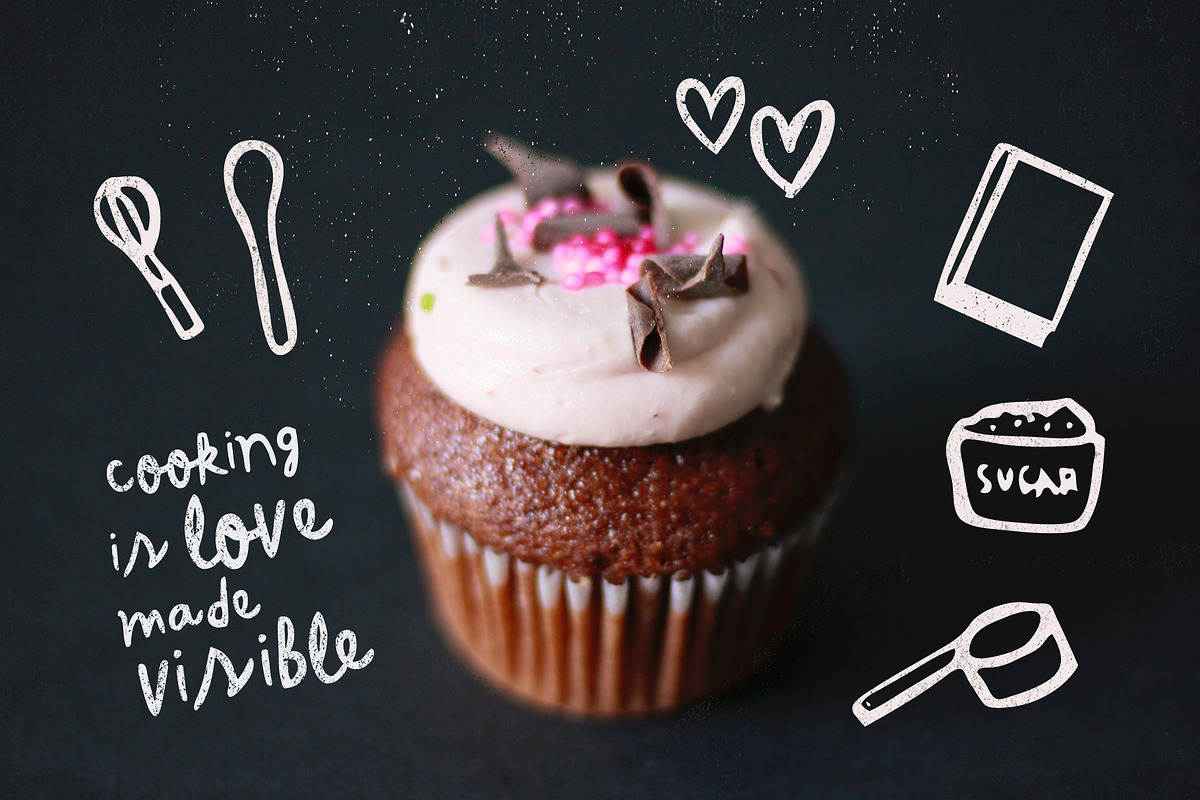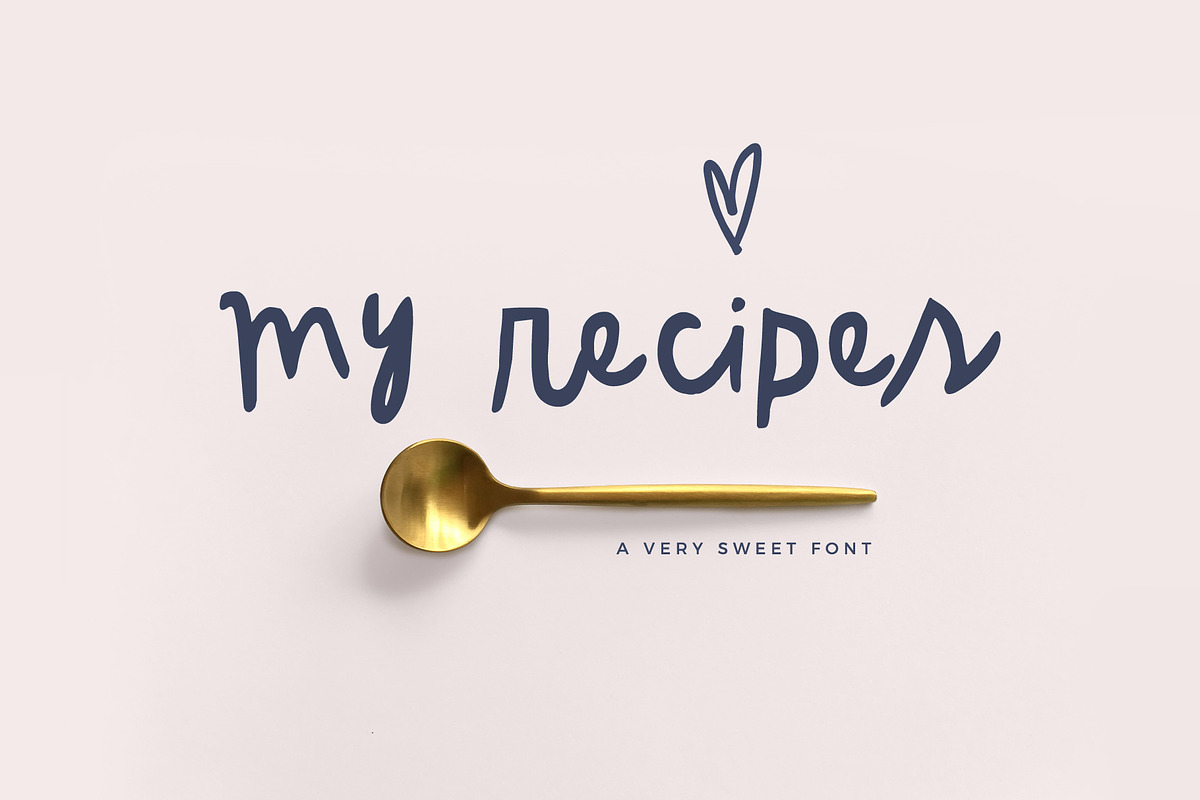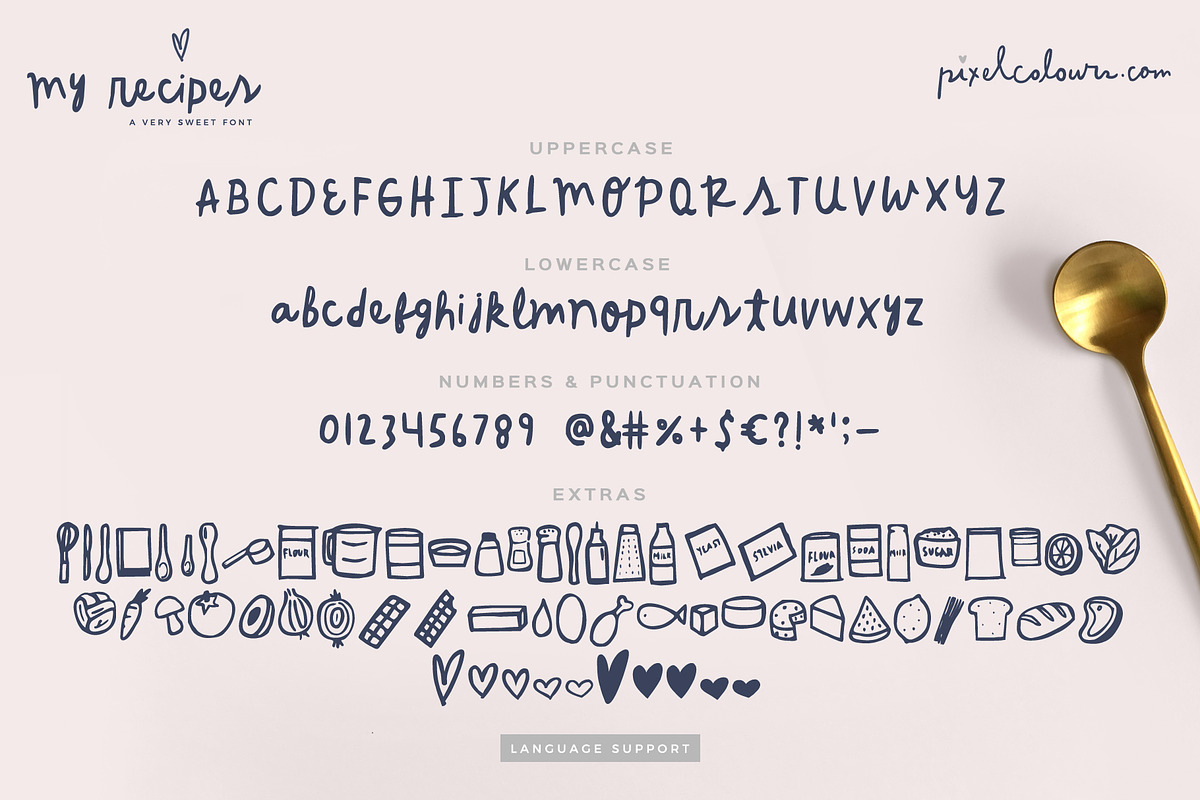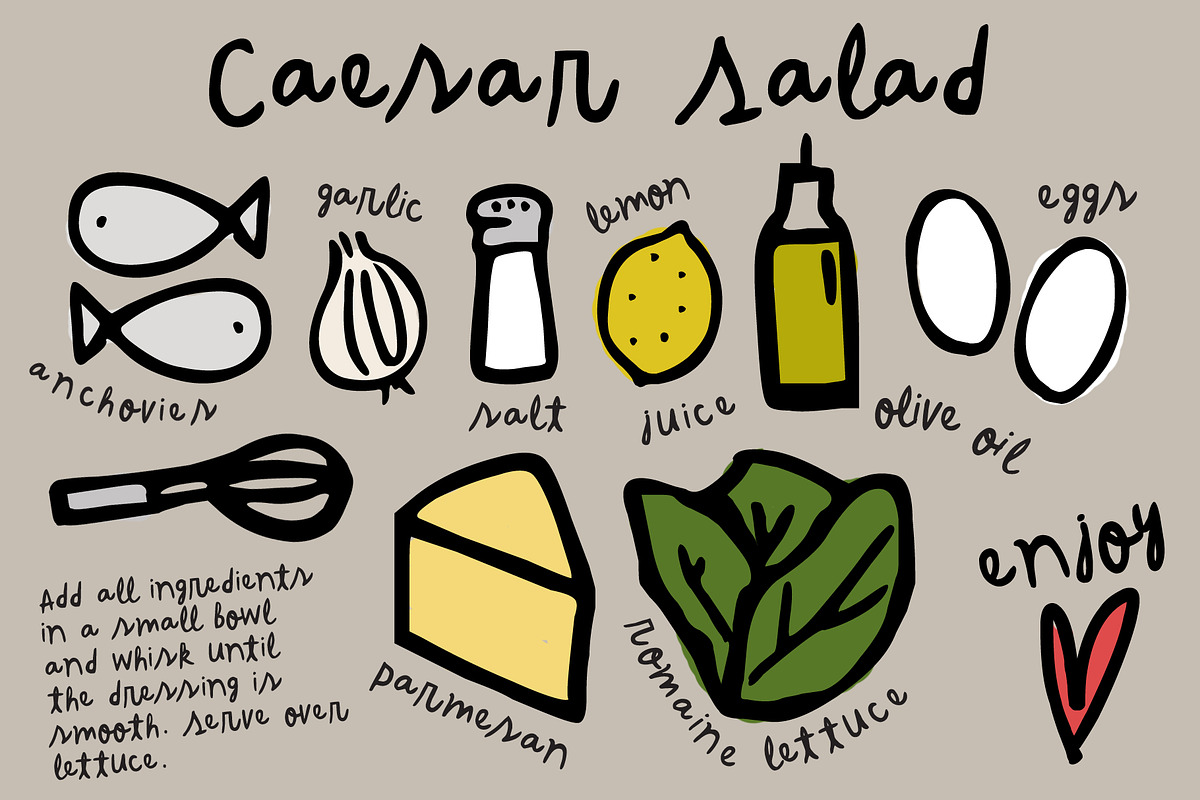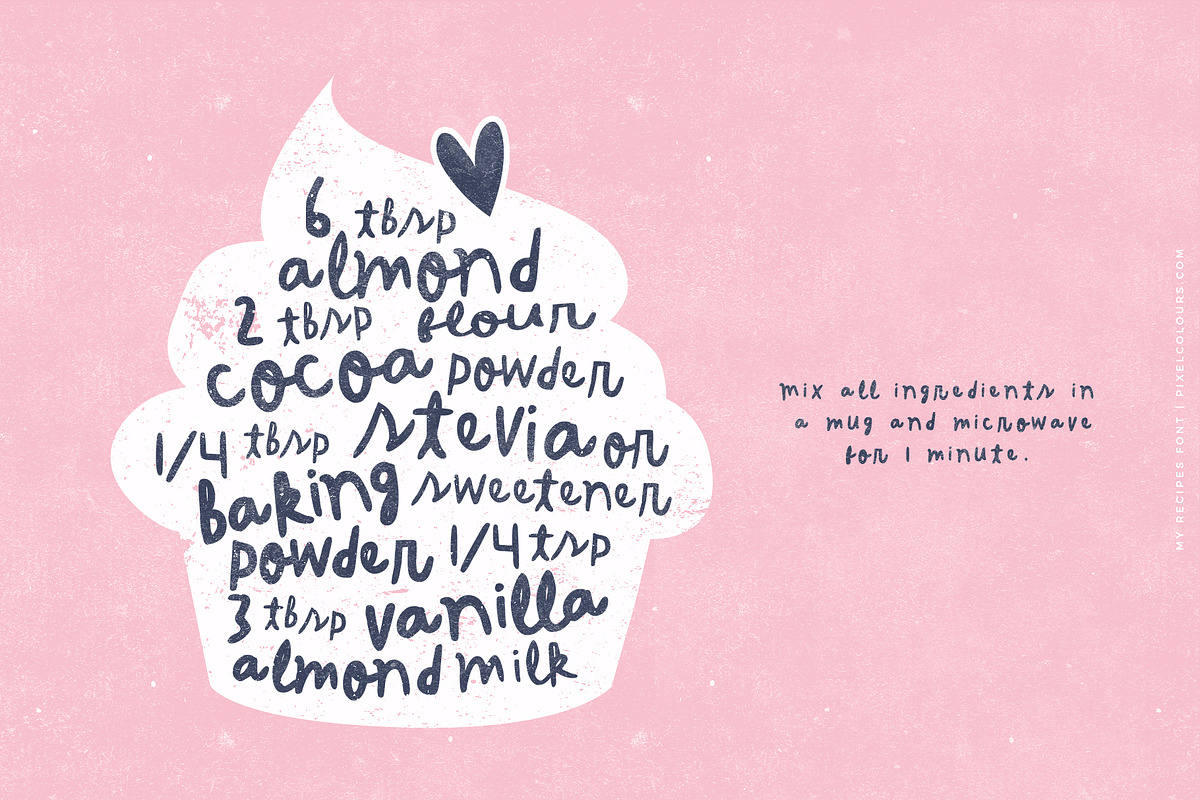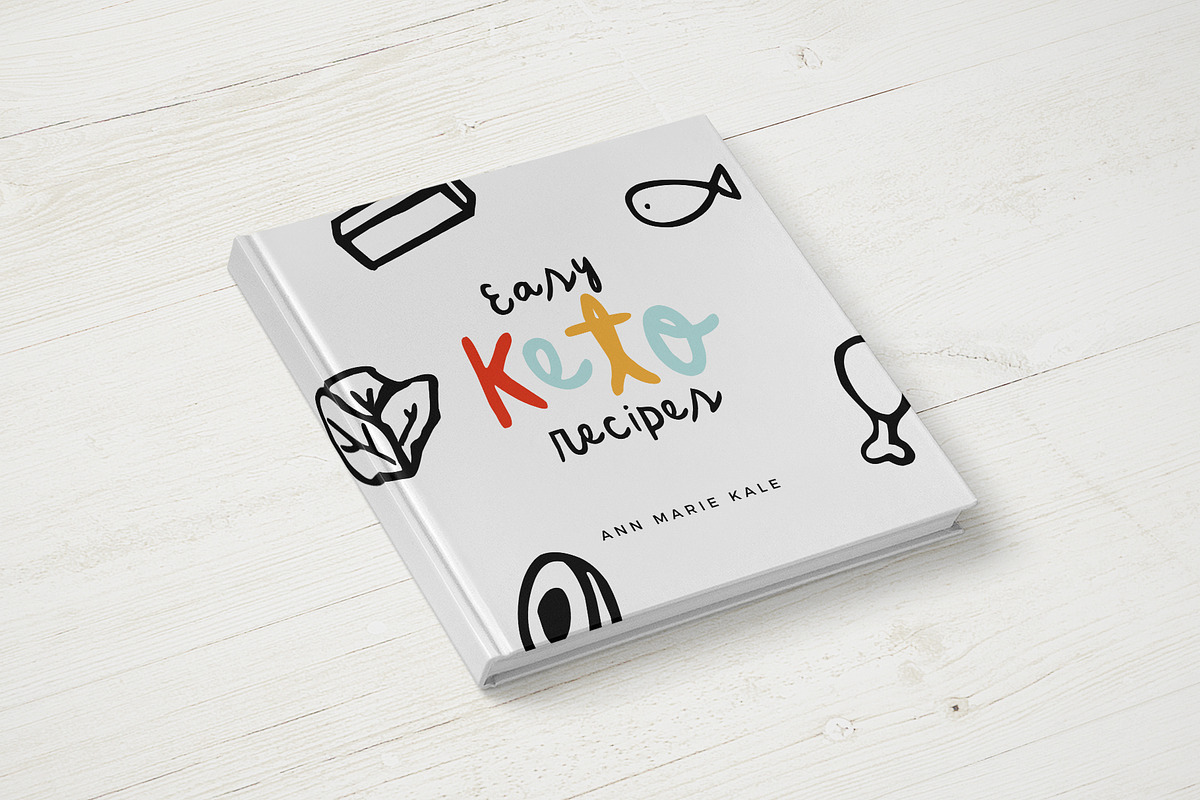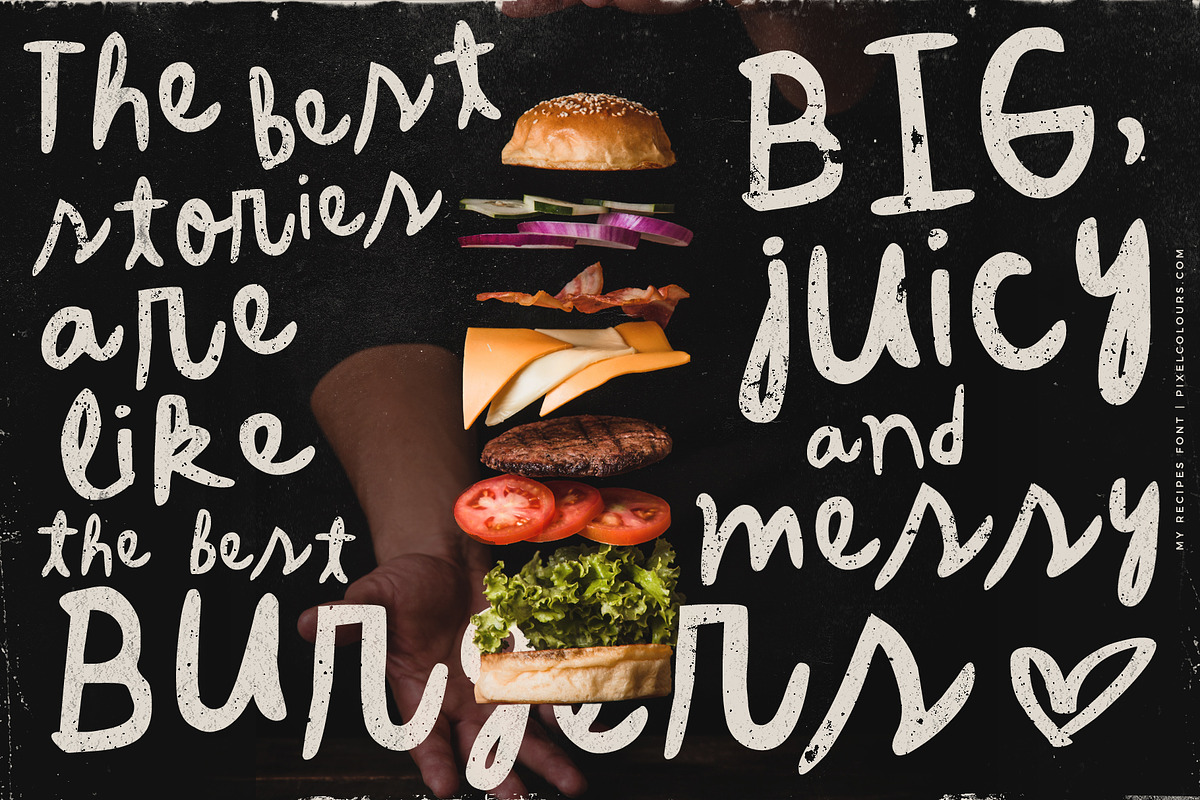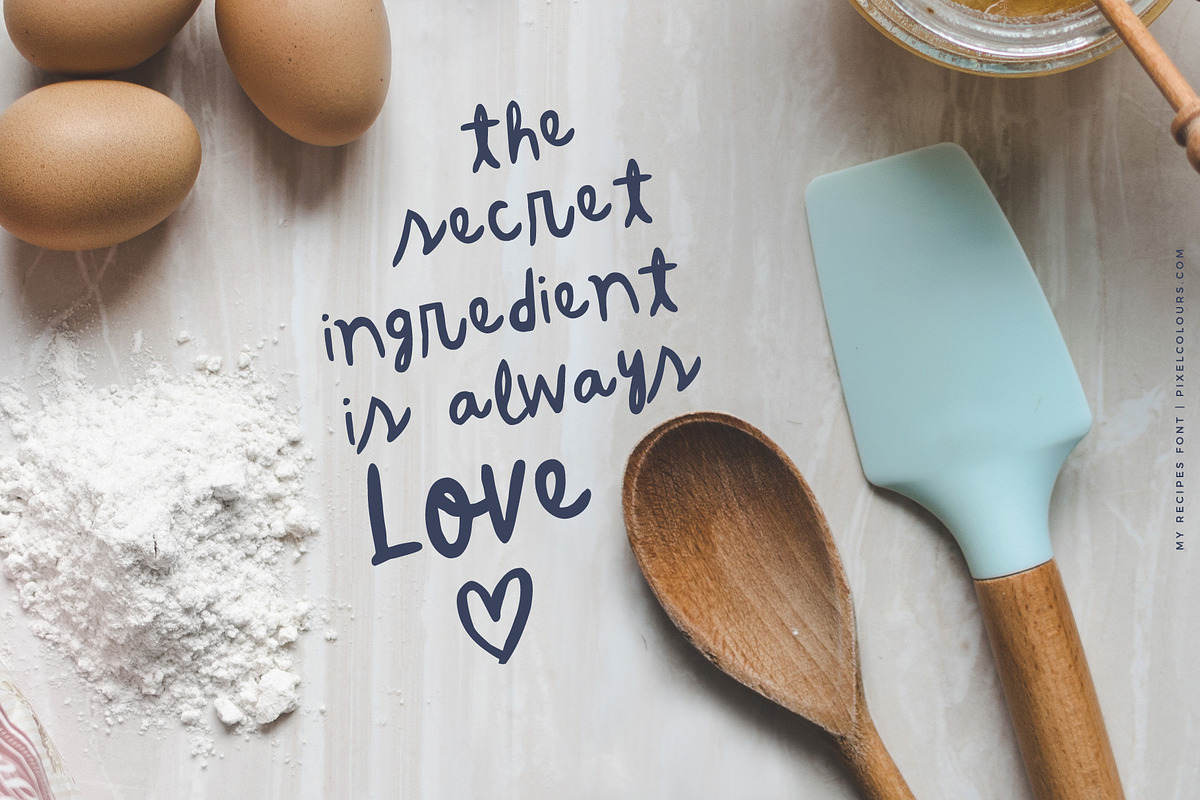
My Recipes Cute Script Font + Graphics
My Recipes Font looks perfect for cards, stationery, posters or anything you can design with a hand drawn style. Includes a dingbats font that contains delicious cooking illustrations, great for creating recipes and Pinterest posts.
Uppercase, lowecase, numbers and puctuation
Cooking Illustration Font